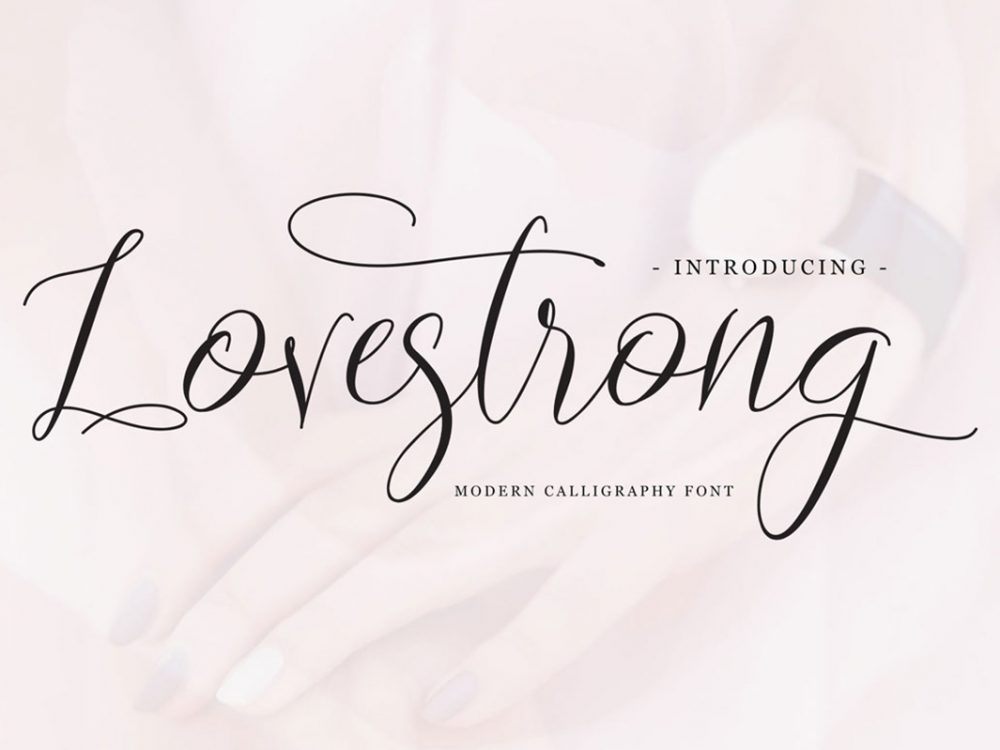
Lovestrong Free Font
Lovestrong Free Font is an interesting calligraphic font that sets itself apart from other fonts in a modern style. It comes in an elegant style. It contains a full set of uppercase letters, lowercase letters, alternate lowercase letters, a large range of punctuation, and numerals. This font is very suitable for your various design projects that require a quality script font. You can use this font to create memorable romantic posters, wedding invitations, greeting cards, branding, flyers, t-shirt and pillow prints, and more. If you like it don’t forget to check out the full version.